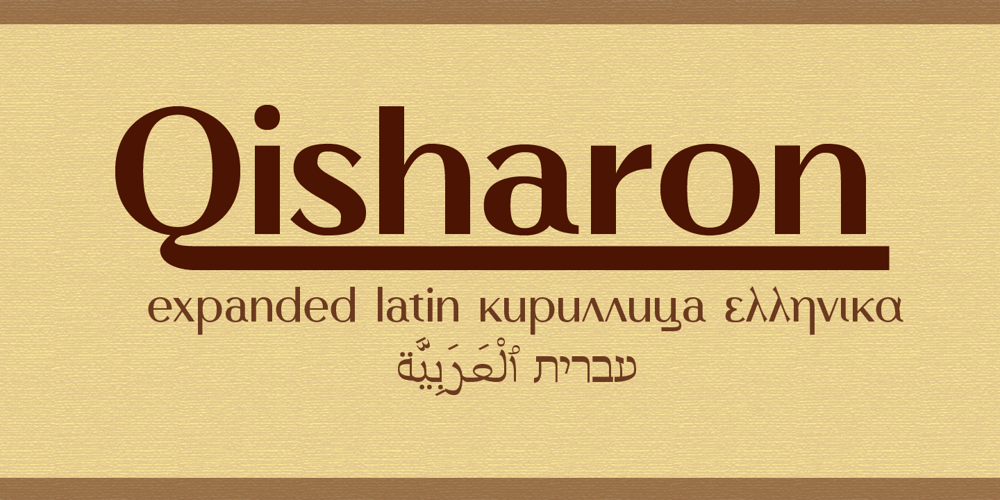
Qisharon Font Family was designed by Anna Tsuranova and published by LetterMuzara. Qisharon contains 4 styles and family package options. Qisharon is a contrast sans serif font, consisting of four styles (light, book, regular, bold) and including 5 writing systems such as Latin (supporting all European languages and Turkish), Cyrillic, Greek, Hebrew, and Arabic. It is based on classic calligraphic rules and respects the traditions of every script. There are plenty of ligatures, that will draw attention to your design. Qisharon with it’s formal and elegant nature is a perfect fit for logos, visit cards and magazine headings.